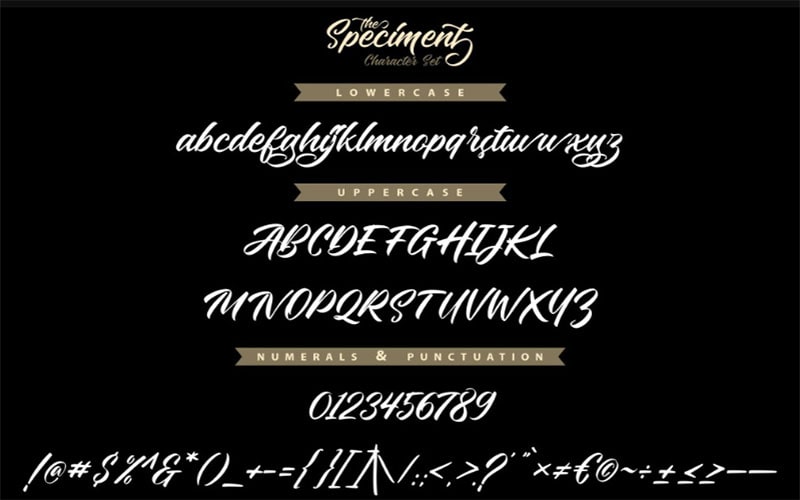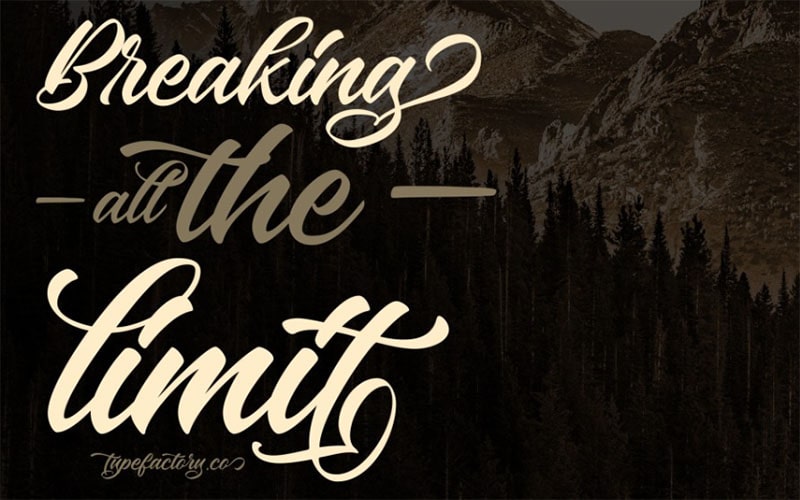
The Speciment Font is a distinctive typeface that stands out for its unique blend of classic elegance and modern versatility. It was designed by a renowned typographer Typefactoryco.
He is known for their ability to merge traditional design elements with contemporary aesthetics. The designer’s portfolio includes a variety of successful fonts that have been widely adopted in both print and digital media.
It is a testament to their expertise in creating typefaces that are both functional and artistically appealing. It comprises several styles such as Regular, Bold, Italic, and Bold Italic to accommodate various design needs.
Each typeface retains the core characteristics of The Speciment Font, offering variations in weight and style to enhance its versatility.
It features clean lines and balanced proportions, ensuring aesthetic appeal. Supports a wide range of languages, enhancing its versatility for global use.
The font’s support for multiple languages further expands its usability, making it an invaluable asset for a wide range of projects. Suitable for a variety of applications, from editorial design to branding.